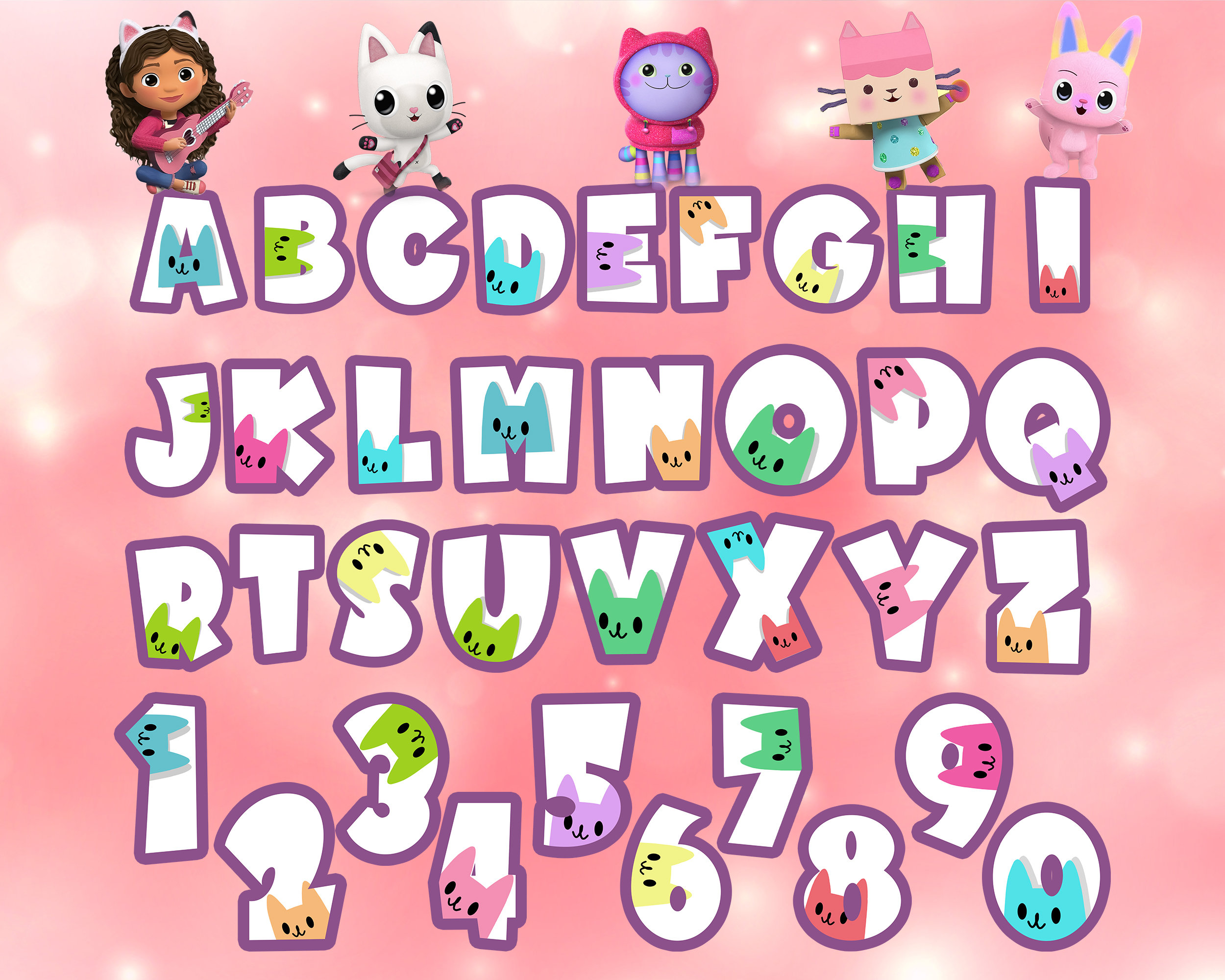
Gabby's Dollhouse Font . Choose from a variety of unique fonts, including the stylish purple gabby font. Transform your text with our innovative font style text effect generator. Cats don't need to be in it. Find out the font used in the poster of gabby's dollhouse, a netflix series about a girl and her cat friends. Seamless integration and extra features. Gabbys dollhouse font is a comic,display type font that can be used on any device such as pc, mac, linux, ios and. Gabbys dollhouse font is a netflix font inspired by the show gabby's dollhouse / la casa de muñecas de gabby. Unless there really is a gabby's dollhouse. Browse by alphabetical listing, by style, by author or by popularity. It has 154 glyphs and 162. Gabbys dollhouse font download is available free from 8font.com. Does anyone know something similar to this font? Archive of freely downloadable fonts. Download the font or browse other.
Does anyone know something similar to this font? Seamless integration and extra features. Cats don't need to be in it. Transform your text with our innovative font style text effect generator. Browse by alphabetical listing, by style, by author or by popularity. Gabbys dollhouse font is a comic,display type font that can be used on any device such as pc, mac, linux, ios and. Unless there really is a gabby's dollhouse. Choose from a variety of unique fonts, including the stylish purple gabby font. Gabbys dollhouse font download is available free from 8font.com. Find out the font used in the poster of gabby's dollhouse, a netflix series about a girl and her cat friends.
Gabby's Dollhouse Font Gabbys dollhouse font download is available free from 8font.com. Gabbys dollhouse font is a netflix font inspired by the show gabby's dollhouse / la casa de muñecas de gabby. Does anyone know something similar to this font? Choose from a variety of unique fonts, including the stylish purple gabby font. Unless there really is a gabby's dollhouse. Browse by alphabetical listing, by style, by author or by popularity. Transform your text with our innovative font style text effect generator. Find out the font used in the poster of gabby's dollhouse, a netflix series about a girl and her cat friends. Gabbys dollhouse font download is available free from 8font.com. Download the font or browse other. Gabbys dollhouse font is a comic,display type font that can be used on any device such as pc, mac, linux, ios and. Archive of freely downloadable fonts. Seamless integration and extra features. It has 154 glyphs and 162. Cats don't need to be in it.
Instant Download Alphabet Ve Numbers Clipart and PNG Party Etsy Ireland Gabby's Dollhouse Font Transform your text with our innovative font style text effect generator. It has 154 glyphs and 162. Gabbys dollhouse font is a comic,display type font that can be used on any device such as pc, mac, linux, ios and. Seamless integration and extra features. Gabbys dollhouse font is a netflix font inspired by the show gabby's dollhouse / la casa. Gabby's Dollhouse Font.
Gabby Dollhouse Alphabet SVG, Gabby Dollhouse PNG, Cricut Do Inspire Gabby's Dollhouse Font Choose from a variety of unique fonts, including the stylish purple gabby font. Download the font or browse other. It has 154 glyphs and 162. Archive of freely downloadable fonts. Gabbys dollhouse font is a netflix font inspired by the show gabby's dollhouse / la casa de muñecas de gabby. Find out the font used in the poster of gabby's. Gabby's Dollhouse Font.
Gabby's Dollhouse Inspired Font Etsy Gabby's Dollhouse Font Unless there really is a gabby's dollhouse. Gabbys dollhouse font download is available free from 8font.com. Seamless integration and extra features. Browse by alphabetical listing, by style, by author or by popularity. Transform your text with our innovative font style text effect generator. Find out the font used in the poster of gabby's dollhouse, a netflix series about a girl. Gabby's Dollhouse Font.
Birthday Logo Gabby's Dollhouse personalized Digital Etsy Birthday Gabby's Dollhouse Font Archive of freely downloadable fonts. It has 154 glyphs and 162. Gabbys dollhouse font is a comic,display type font that can be used on any device such as pc, mac, linux, ios and. Choose from a variety of unique fonts, including the stylish purple gabby font. Cats don't need to be in it. Transform your text with our innovative font. Gabby's Dollhouse Font.
Gabbys Dollhouse Svg Bundle,gabbys Dollhouse Png Bundle, Gabbys Gabby's Dollhouse Font Gabbys dollhouse font download is available free from 8font.com. Cats don't need to be in it. Find out the font used in the poster of gabby's dollhouse, a netflix series about a girl and her cat friends. Gabbys dollhouse font is a netflix font inspired by the show gabby's dollhouse / la casa de muñecas de gabby. Browse by alphabetical. Gabby's Dollhouse Font.
Gabby Dollhouse Alphabet SVG, Gabby Dollhouse PNG, Cricut Dollhouse Gabby's Dollhouse Font It has 154 glyphs and 162. Cats don't need to be in it. Download the font or browse other. Seamless integration and extra features. Browse by alphabetical listing, by style, by author or by popularity. Archive of freely downloadable fonts. Transform your text with our innovative font style text effect generator. Gabbys dollhouse font download is available free from 8font.com.. Gabby's Dollhouse Font.
Gabby's DollHouse Font Gabby's DollHouse svg Etsy México Gabby's Dollhouse Font Download the font or browse other. Unless there really is a gabby's dollhouse. Transform your text with our innovative font style text effect generator. Cats don't need to be in it. Does anyone know something similar to this font? Archive of freely downloadable fonts. Browse by alphabetical listing, by style, by author or by popularity. Gabbys dollhouse font is a. Gabby's Dollhouse Font.
Gabby Doll Inspired Alphabet Gabby Doll Inspired Font GADOPR Etsy Gabby's Dollhouse Font It has 154 glyphs and 162. Gabbys dollhouse font download is available free from 8font.com. Transform your text with our innovative font style text effect generator. Unless there really is a gabby's dollhouse. Cats don't need to be in it. Choose from a variety of unique fonts, including the stylish purple gabby font. Gabbys dollhouse font is a comic,display type. Gabby's Dollhouse Font.
Gabby Dollhouse Inspired Alphabet Gabby Doll Inspired Font Etsy Israel Gabby's Dollhouse Font Seamless integration and extra features. Choose from a variety of unique fonts, including the stylish purple gabby font. Gabbys dollhouse font is a comic,display type font that can be used on any device such as pc, mac, linux, ios and. Unless there really is a gabby's dollhouse. Archive of freely downloadable fonts. Does anyone know something similar to this font?. Gabby's Dollhouse Font.